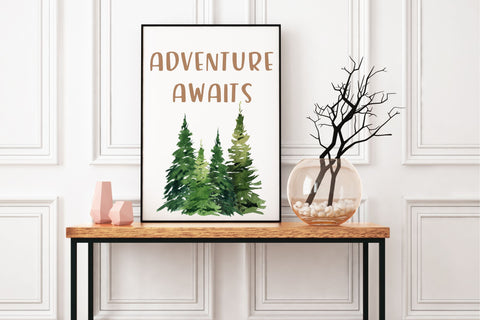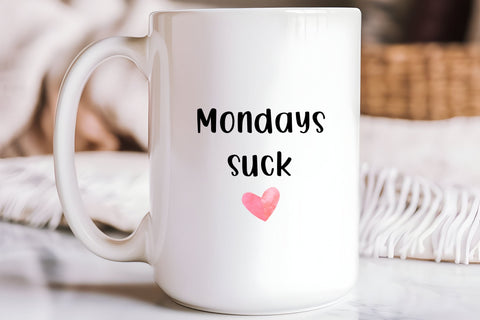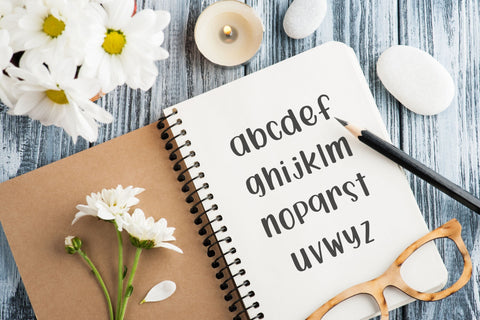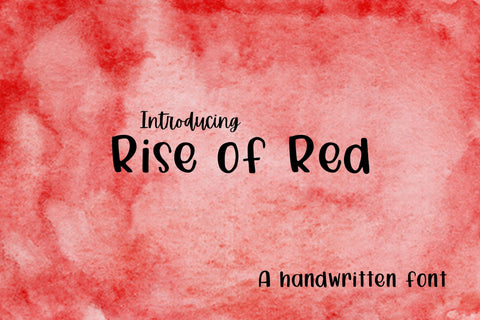
Rise of Red Handwritten Font
Introducing Rise of Red — a fresh, handwritten font that blends playful curves with modern simplicity! Perfect for adding a personal touch to your creative projects, Rise of Red brings your designs to life with its expressive and casual style.
This font is ideal for a variety of uses:
❤️ Wedding invitations
❤️ Logo design & branding
❤️ DIY crafts & card making
❤️ Social media graphics
❤️ Posters, quotes & more!